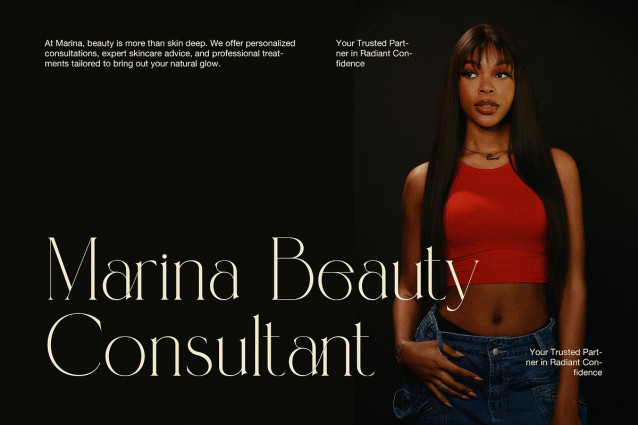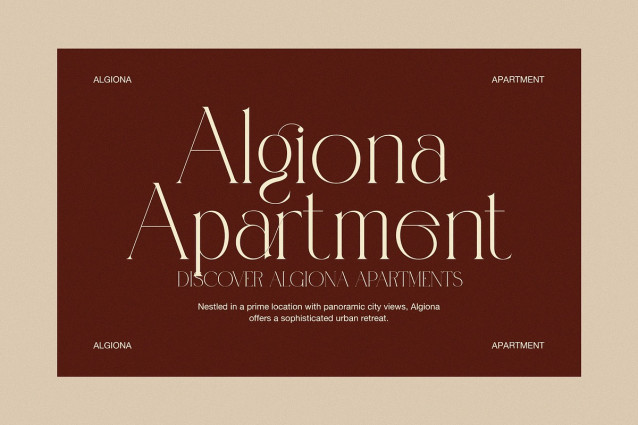
Melkino Font
Melkino Font – Elegant Serif Font is a graceful and modern typeface designed for premium, clean, and professional branding. It combines the timeless beauty of traditional serifs with a fresh, minimal twist—making it ideal for creators who want to add a sense of sophistication to their designs without being overly formal.
Each letter in Melkino is carefully crafted with balanced proportions, making it look refined in any size. Additionally, its functional ligatures enhance text flow and add a smooth, elegant finish to every word. As a result, this font looks polished, clean, and engaging in both digital and print formats.